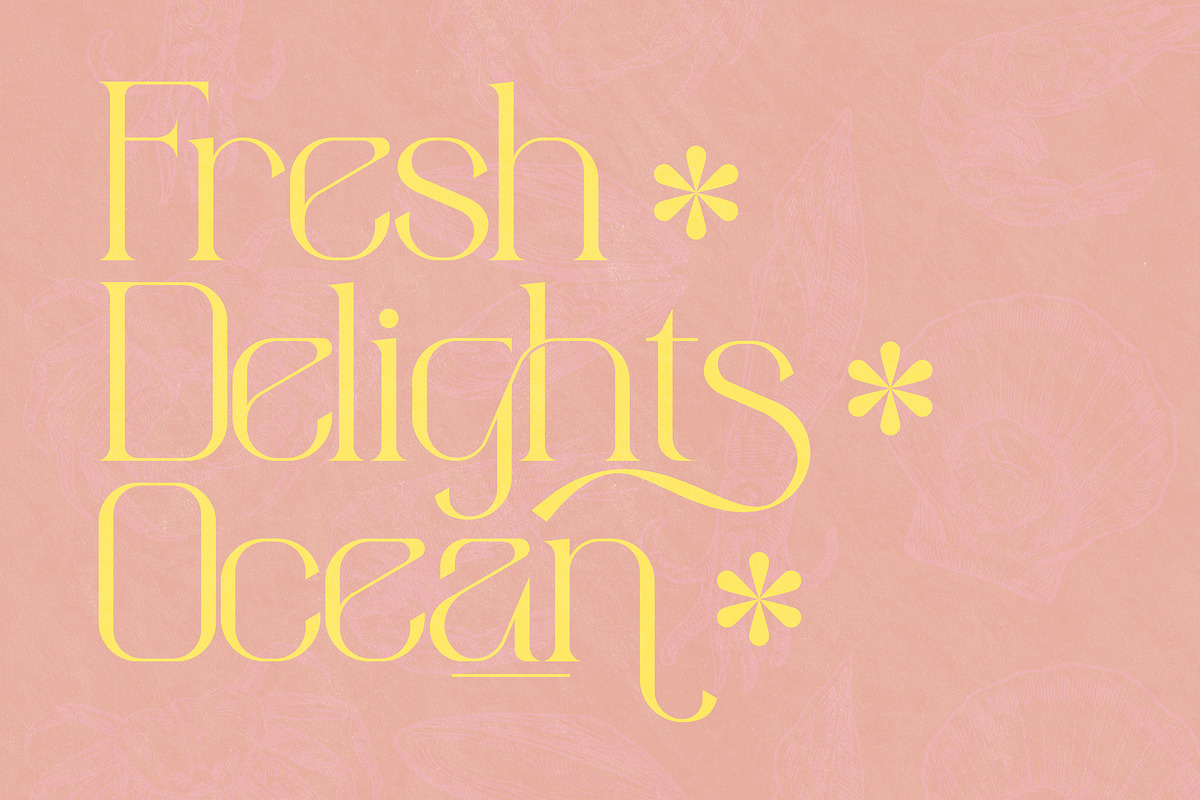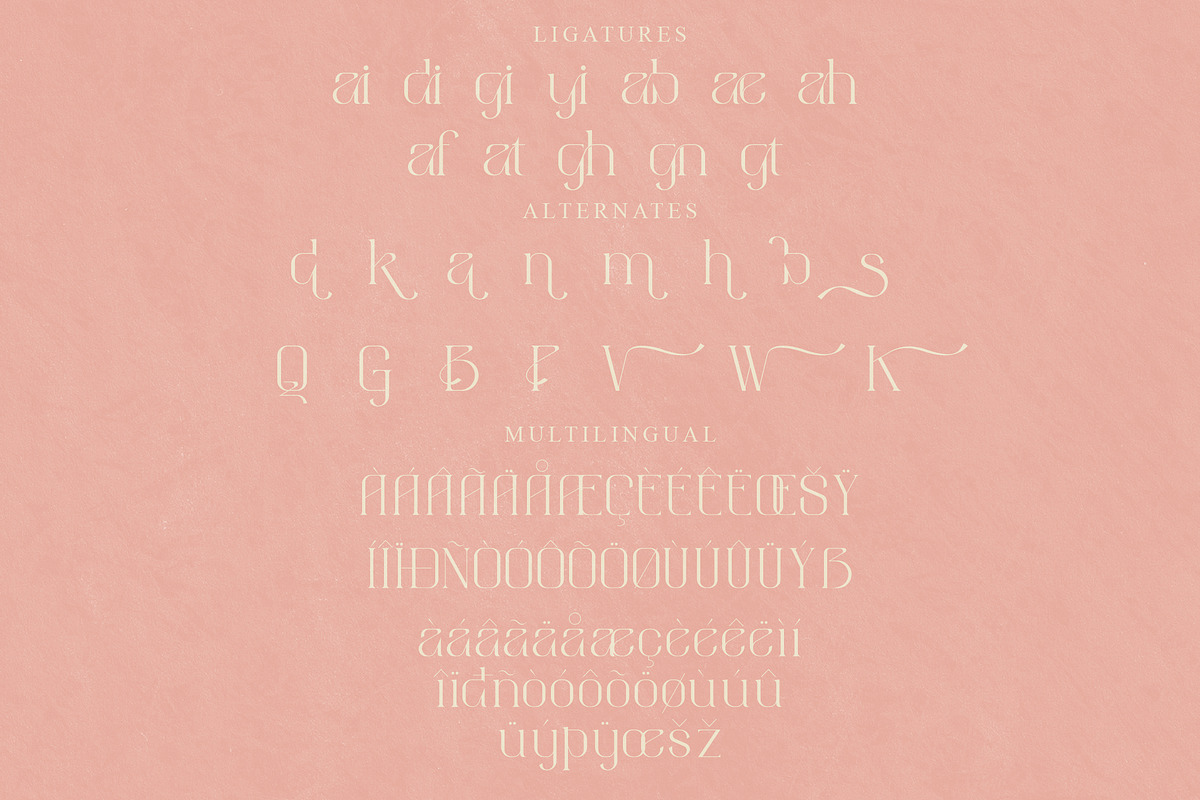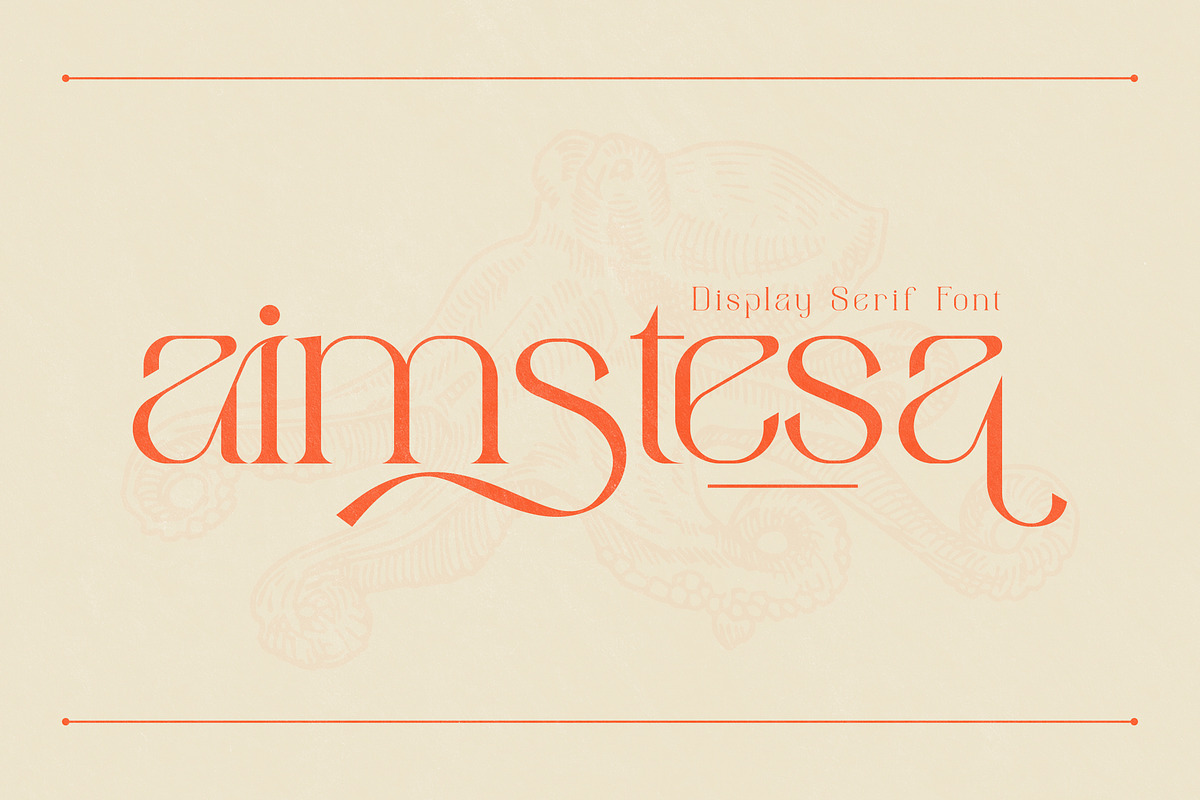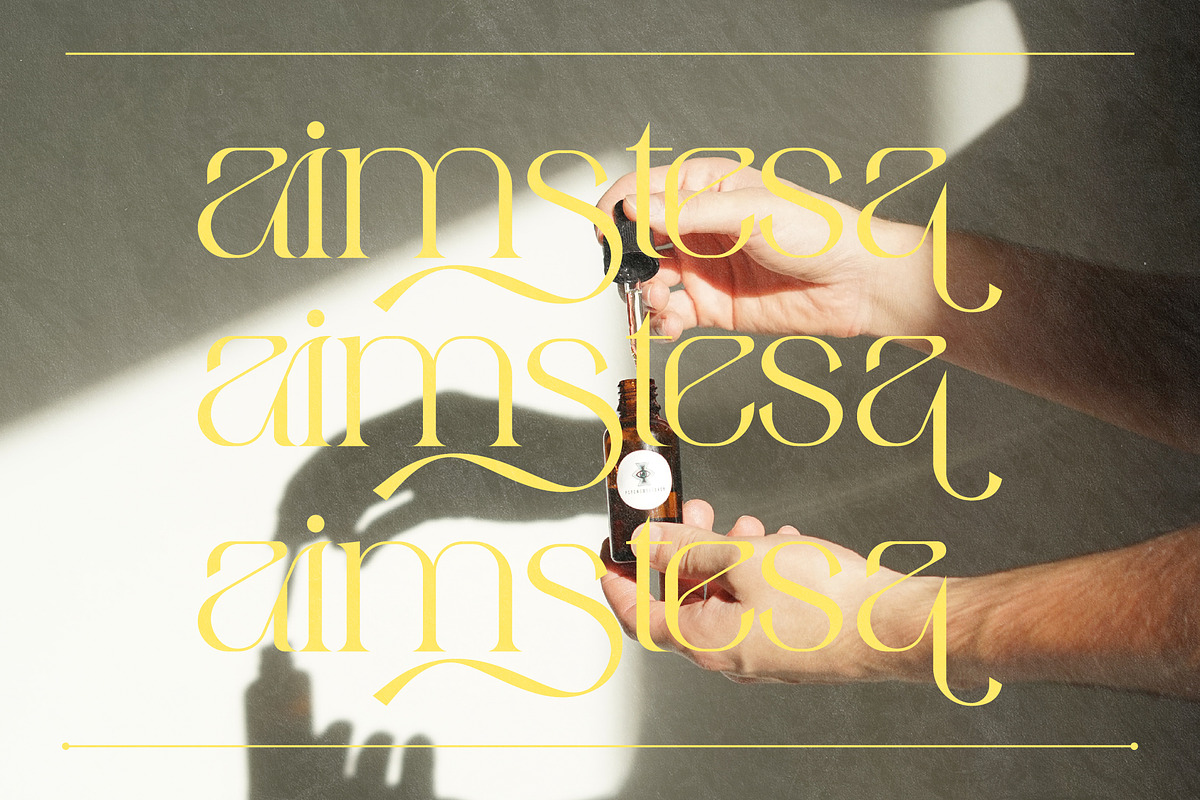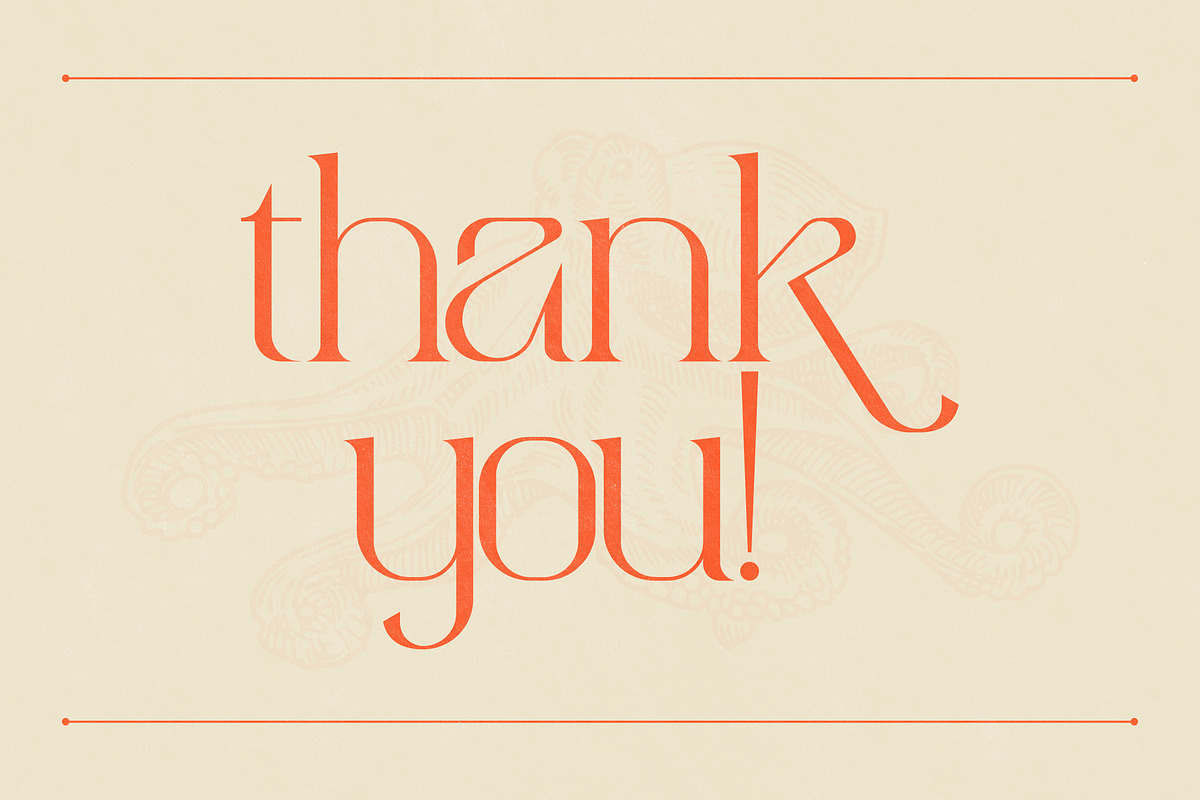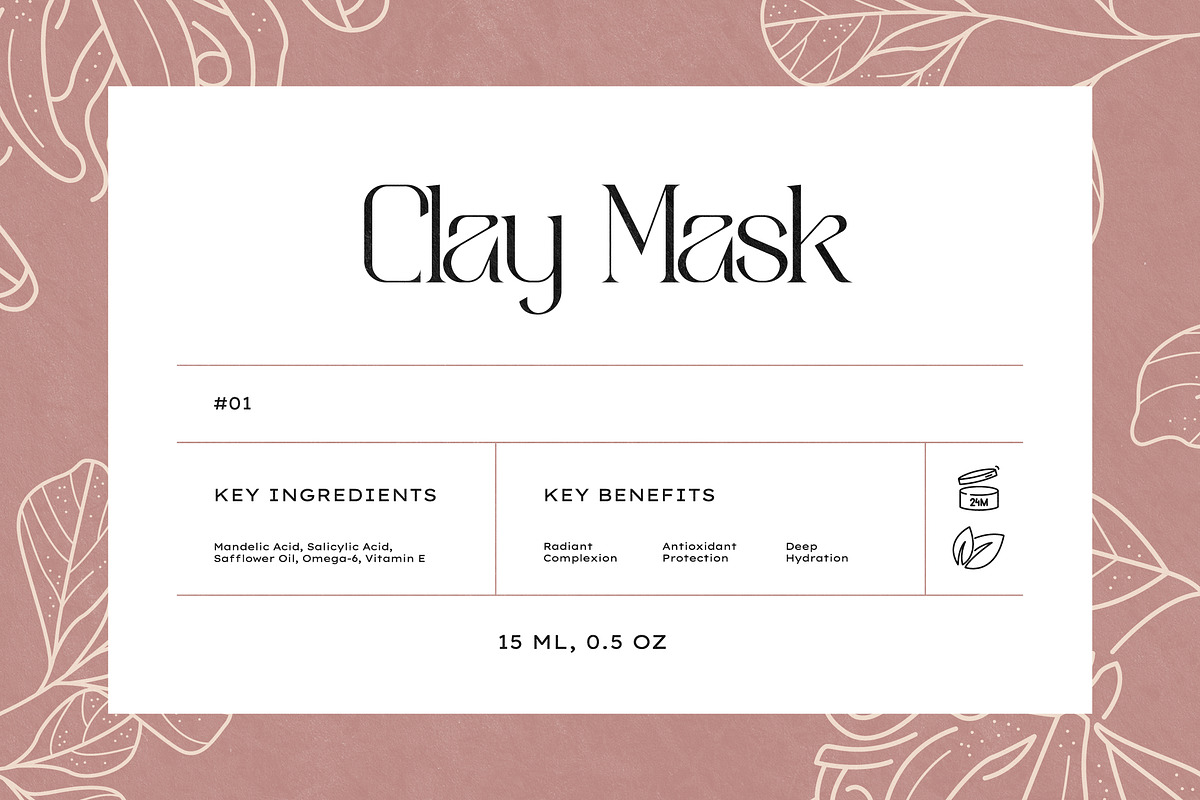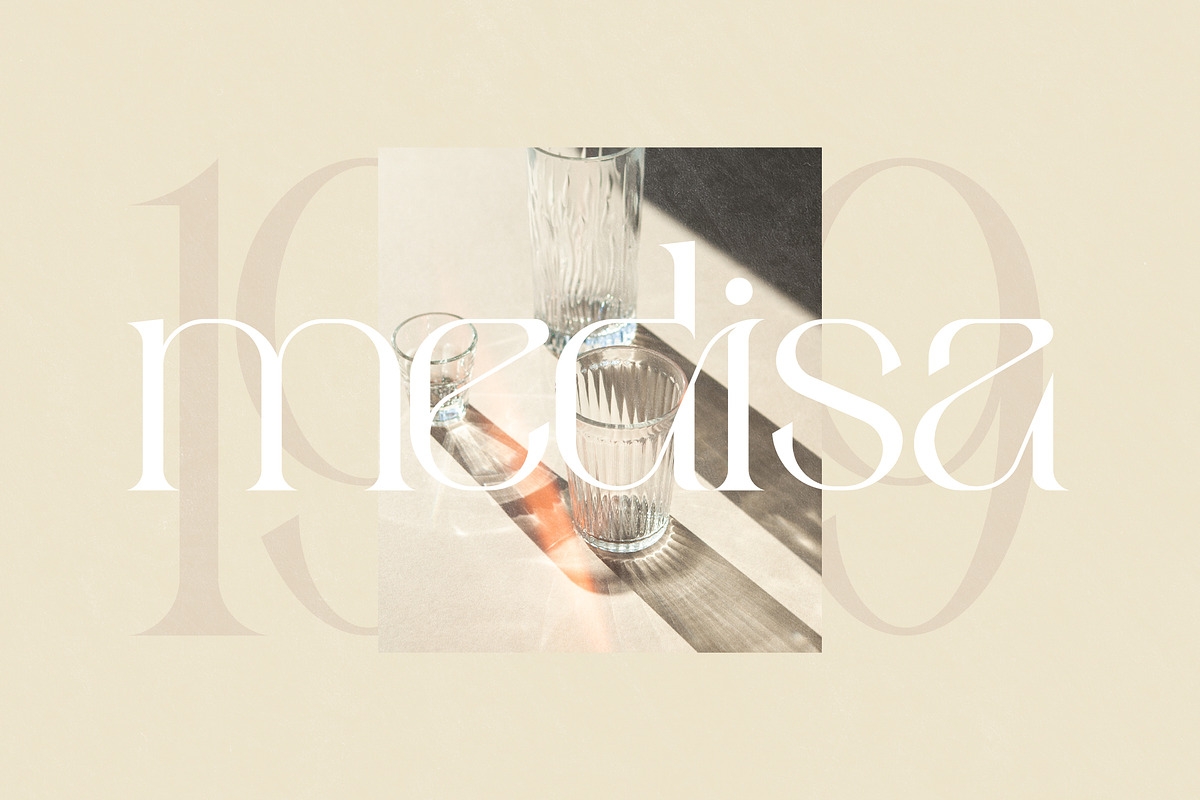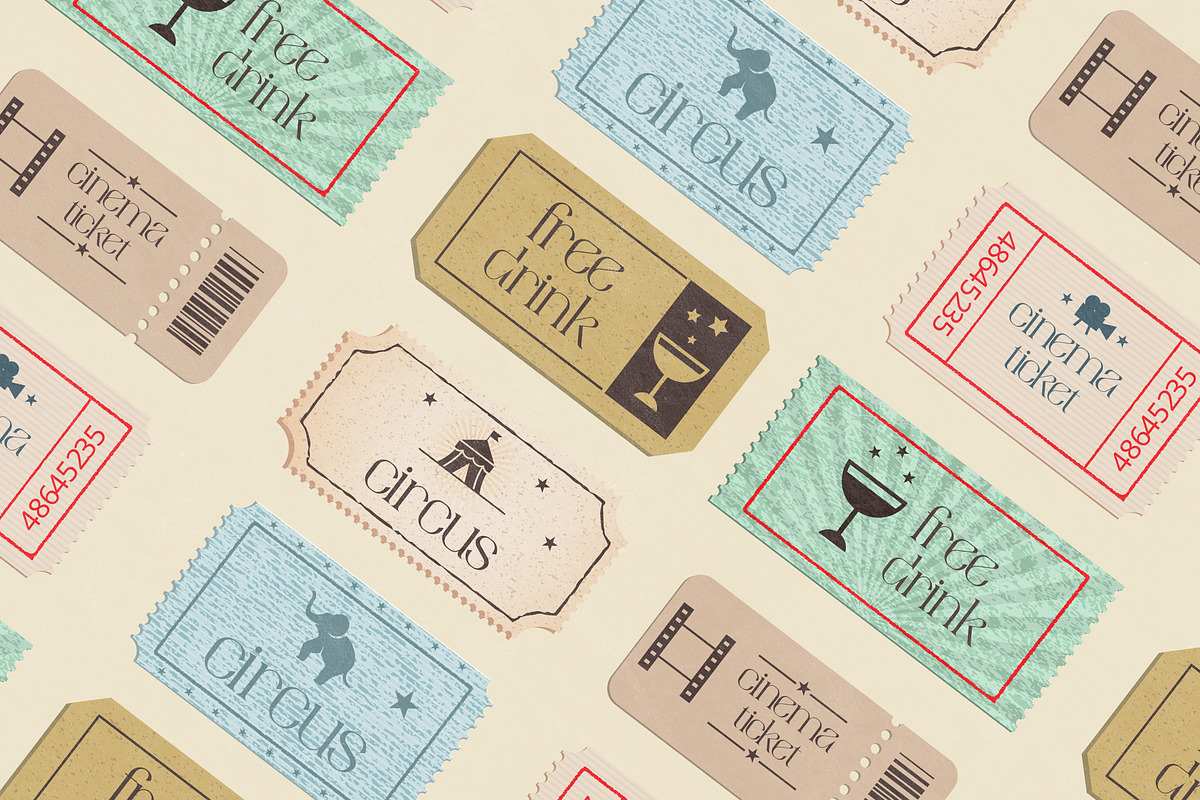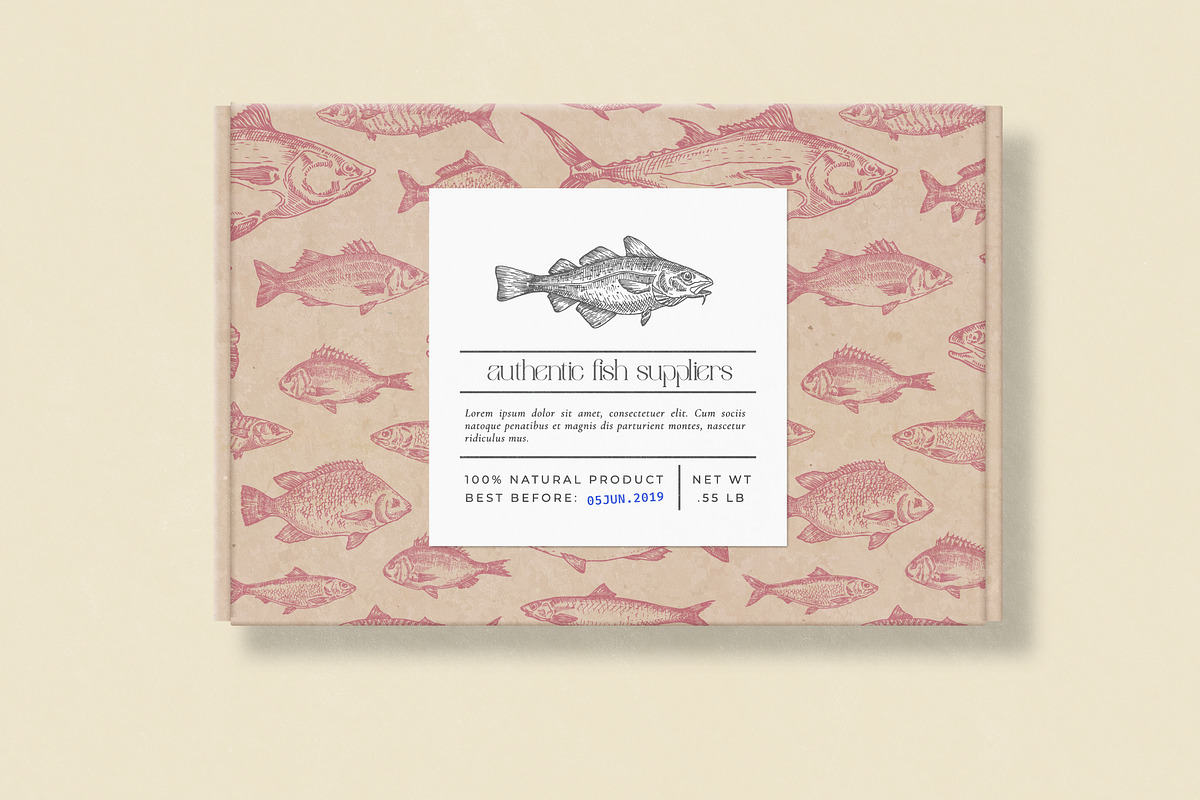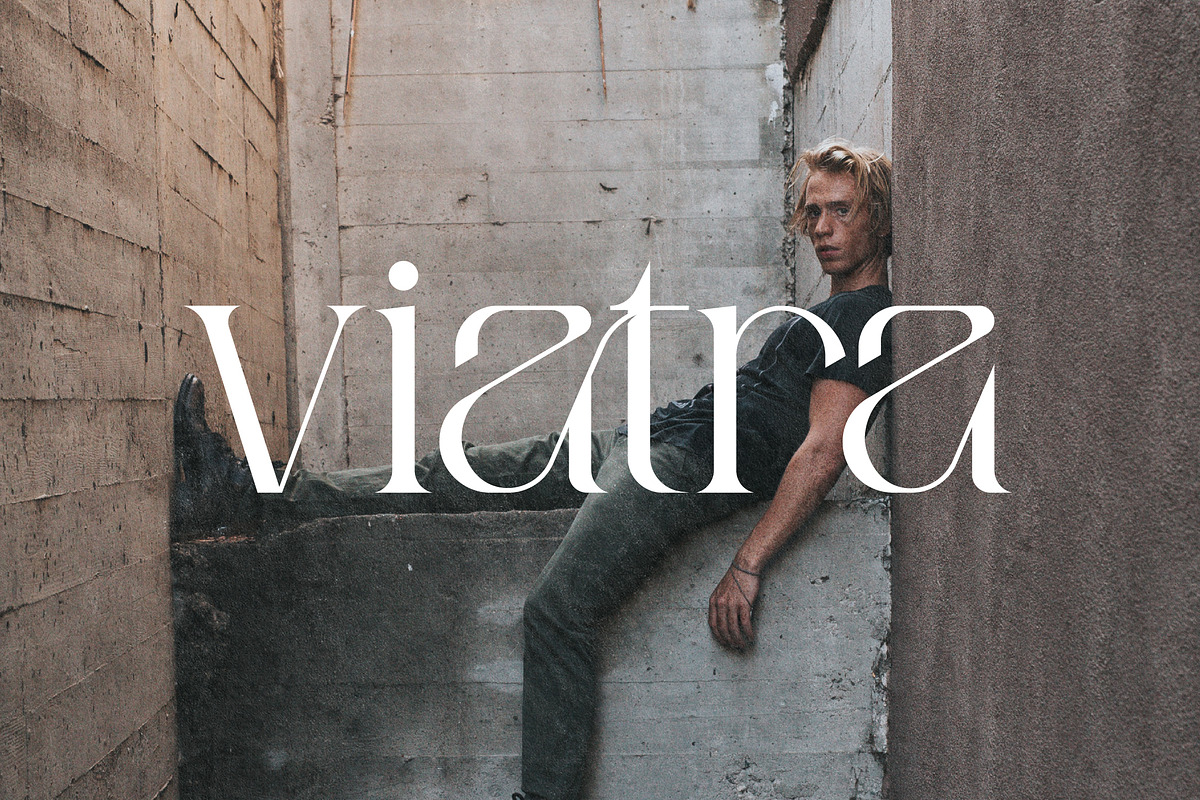
aimstesa stylish serif font
Proudly present aimstesa Typeface, created by Storytype, A serif modern and classic typeface that has own unique style & modern look. This typeface is perfect for an elegant & luxury logo, book or movie title design, fashion brand, magazine, clothes, lettering, quotes, and so much more.